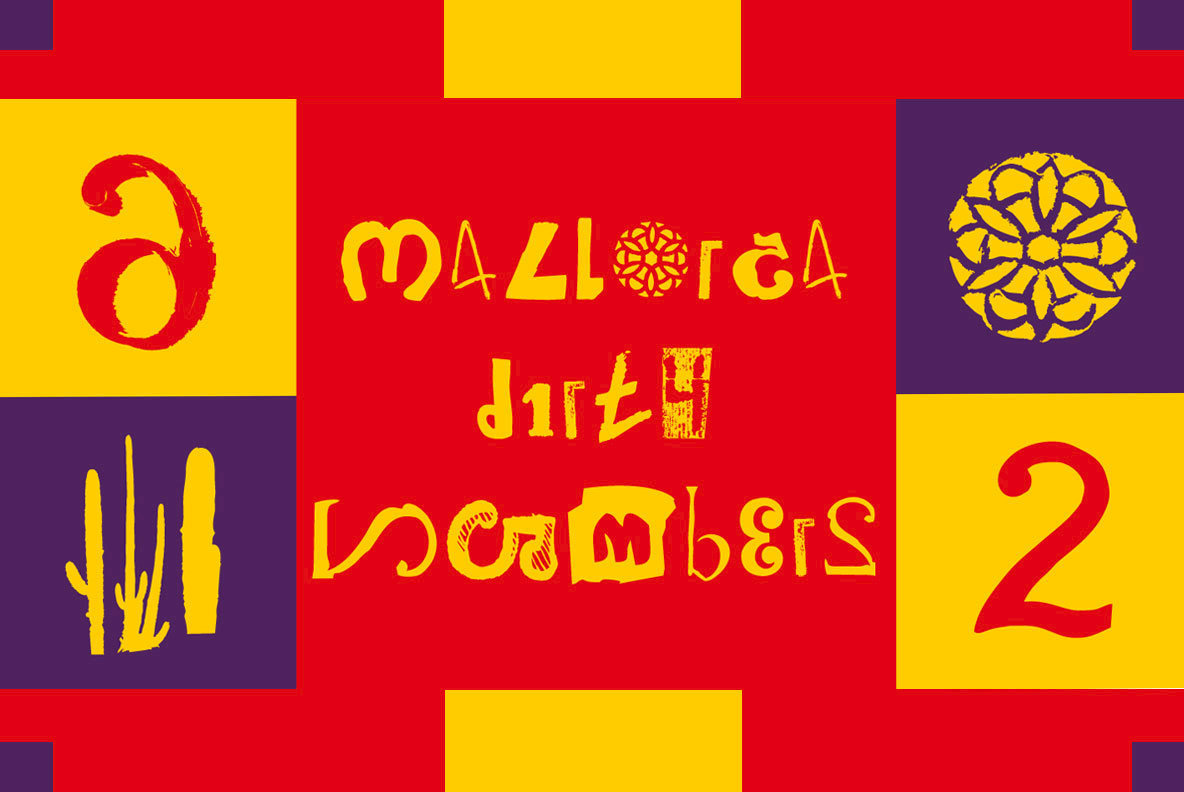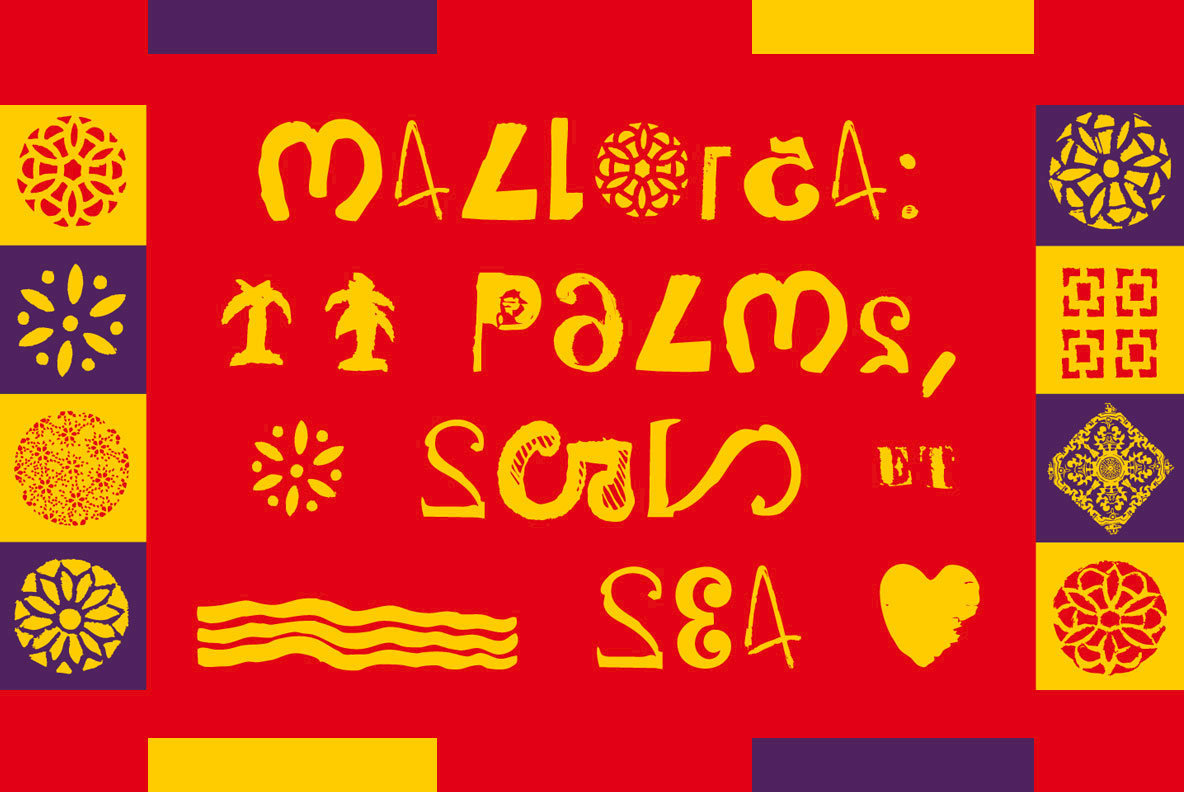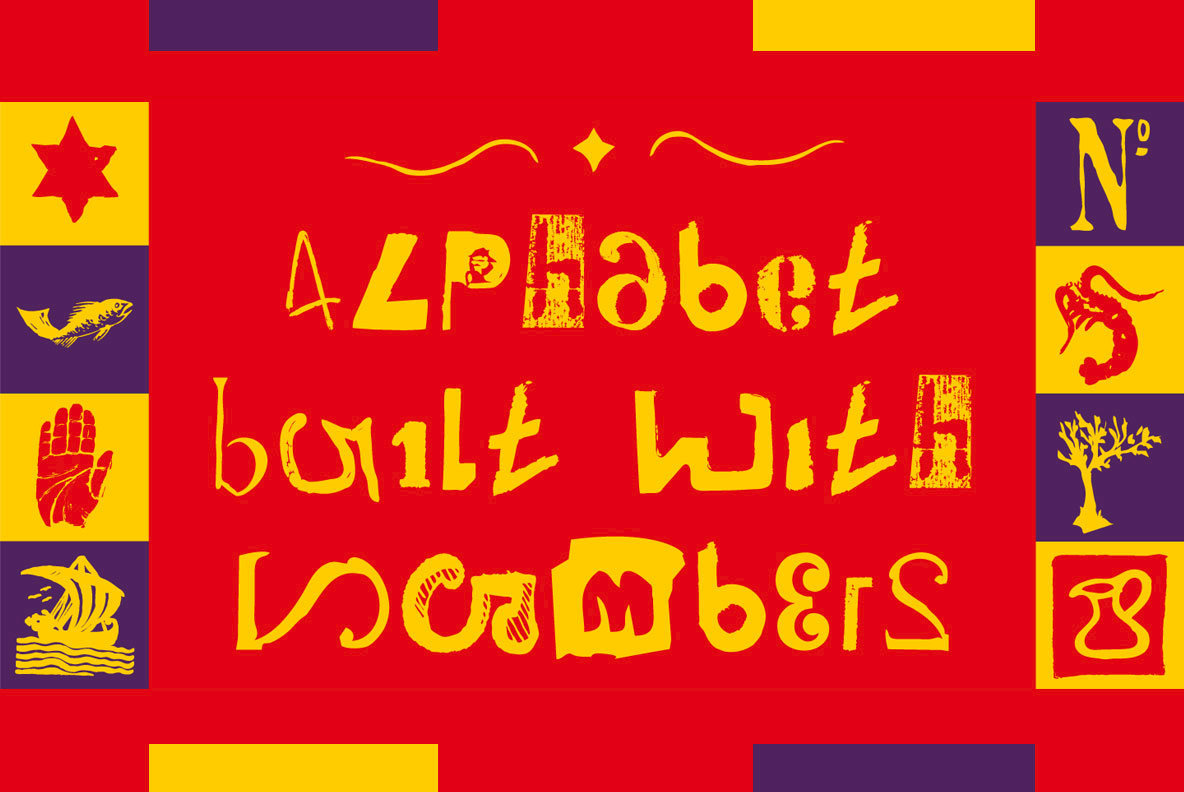
Mallorca Dirty Numbers Font
Mallorca Dirty Numbers Vol1
The typeface “Mallorca Dirty Numbers Vol 1” is designed for the Typo Graphic Design font foundry in 2017 by Manuel Viergutz. The playful display font is designed on holiday photos of different numbers (house numbers, graffitis, handwritten menu cards …) from Mallorca. An alphabet built with numbers.
524 glyphs with A–Z, a–z, 0–9 and 99+ decorative extras like ornaments, arrows, dingbats, emojis, symbols, geomatric shapes, catchwords, decorative ligatures (type the word “LOVE” for ❤ or “SMILE” for ☺as OpenType-Feature dlig ) and of course many many numbers (20+ stylistic sets). For use in logos, magazines, posters, advertisement plus as webfont for decorative headlines. The font works best for display size.
■ Font Name: Mallorca Dirty Numbers
■ Font Category: Display for headline size
■ Glyph Set: 524 glyphs
■ Language Support: spanish, catalan
■ Specials: 99+ decorative extras like ornaments, arrows, dingbats, emojis, symbols, geomatric shapes, catchwords, decorative ligatures (type the word “LOVE” for ❤ or “SMILE” for ☺as OpenType-Feature dlig ) and of course many many numbers (20+ stylistic sets).
■ Design Date: 2017
■ Type Designer: Manuel Viergutz